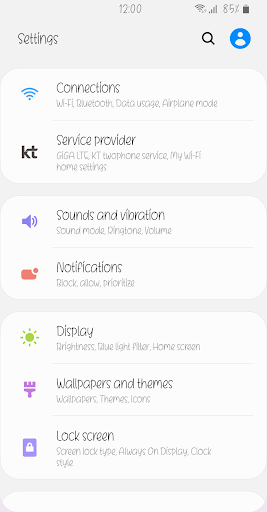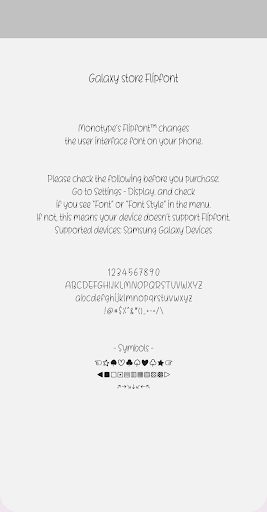
Nm OKNeverStop™ Latin Flipfont
Nm OKNeverStop
Nm OKNeverStop is a lovely and cute font and has good readability. Customize your phone with this. Please try this font and leave your feedback.